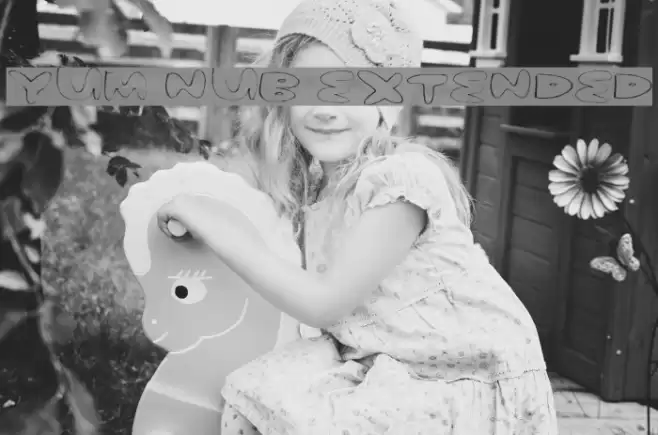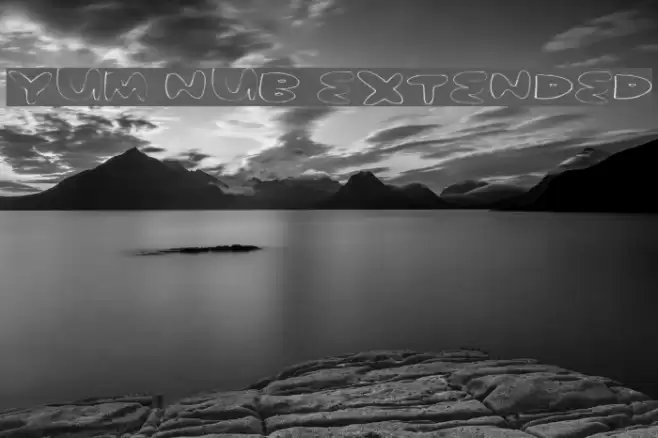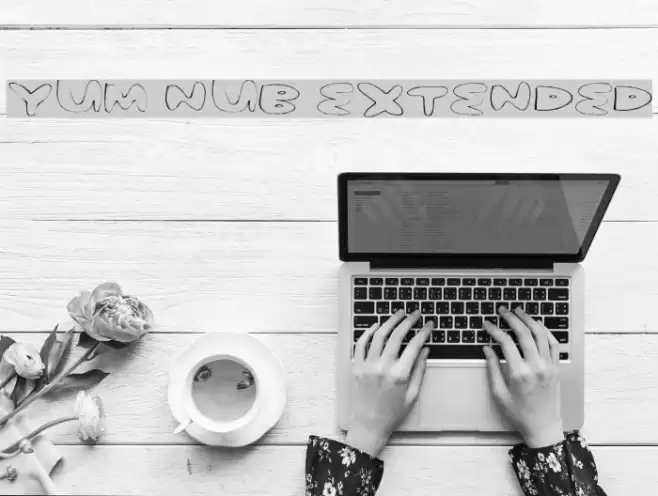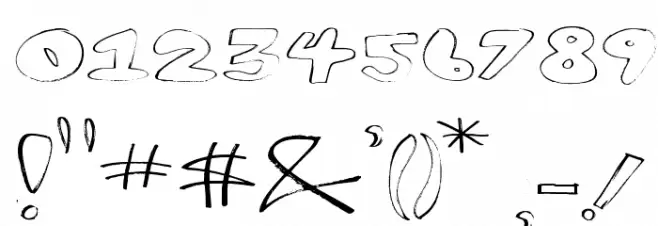
yum nub extended Font
yum nub extended Description
This playful and bold font features a unique, hand-drawn style with a cartoonish flair. Each character is outlined, giving it a bubble-like appearance that is both fun and engaging. The letters are slightly irregular, adding to the whimsical and informal feel. The numbers and special characters maintain this playful aesthetic, making the font versatile for creative projects. The overall design is eye-catching and ideal for capturing attention in a lighthearted manner.
A playful, hand-drawn font with a bold, cartoonish style from Cartoon fonts.
- Proposed Projects: Perfect for children's books, comic strips, playful branding, and party invitations.
- Overall Style: Playful, Cartoonish, Whimsical